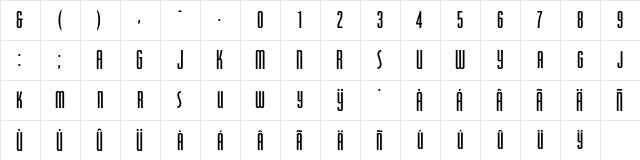
OdeonCondensedAlternate Regular
Design Context for OdeonCondensedAlternate Typeface
OdeonCondensedAlternate offers clean, dependable letterforms without strong stylistic allegiance, making it a practical choice for designers who need flexibility. Its narrow stance lets it pack a punch even in space-constrained designs.